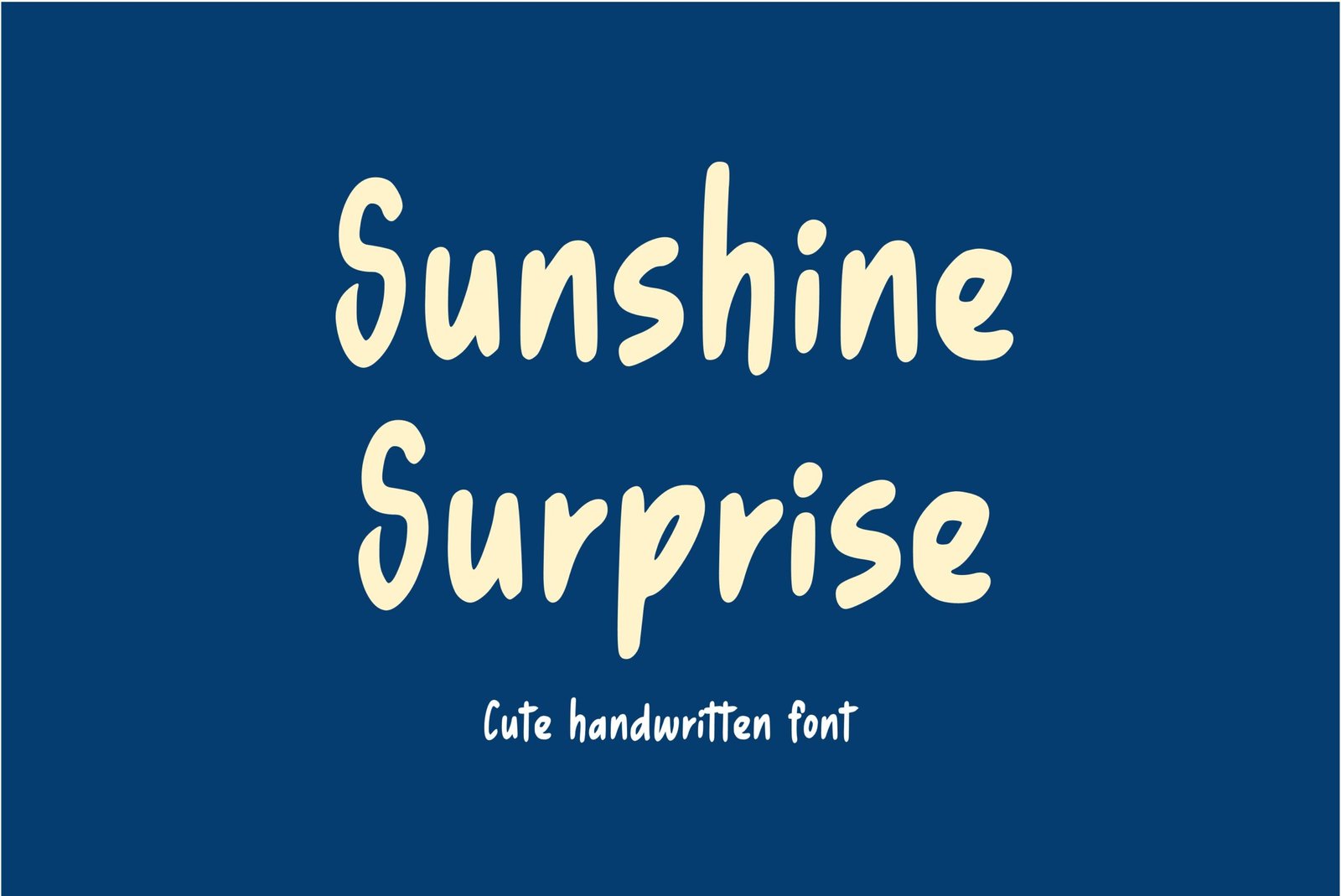
Sunshine Surprise Font
Handwritten font. “Sunshine Surprise”. Perfect for goodnotes, student projects, classroom, school teachers, advertising and display purposes, including banners, book covers, shirts, posters, logos and much more!
Font includes all upper and lowercase letters, numbers, characters, and punctuation.